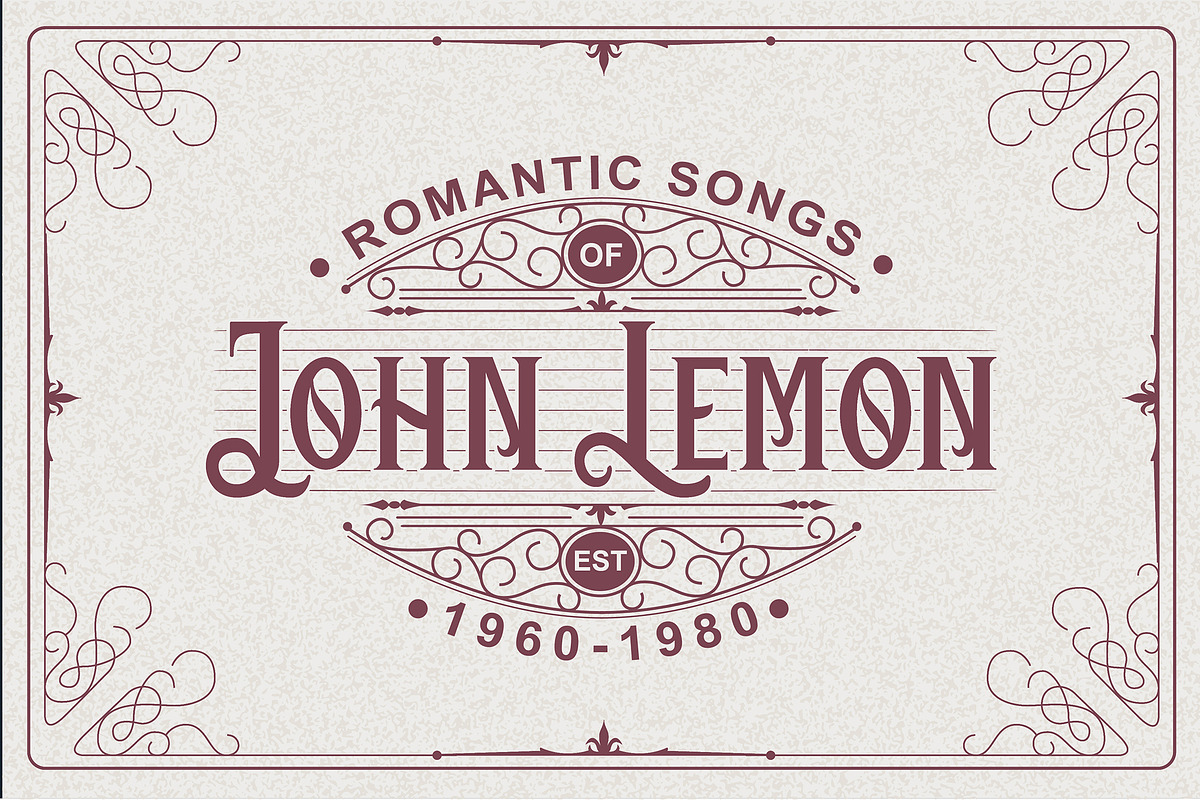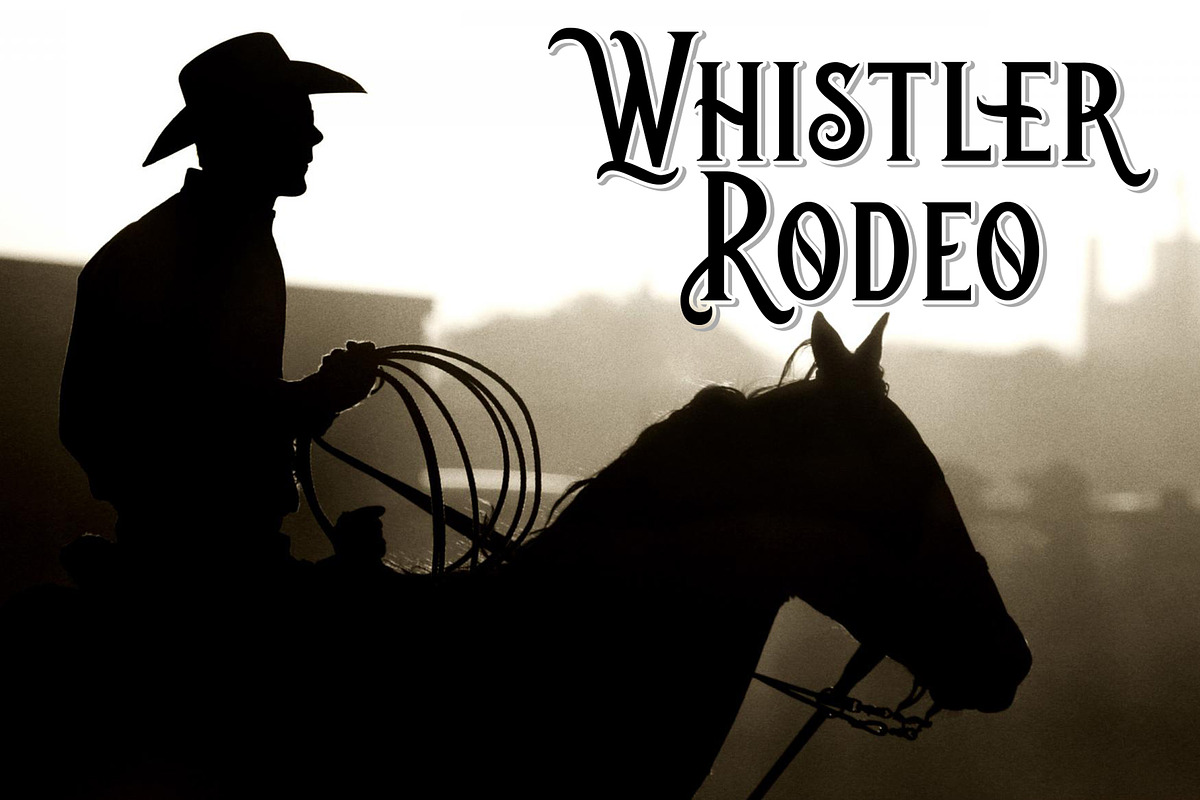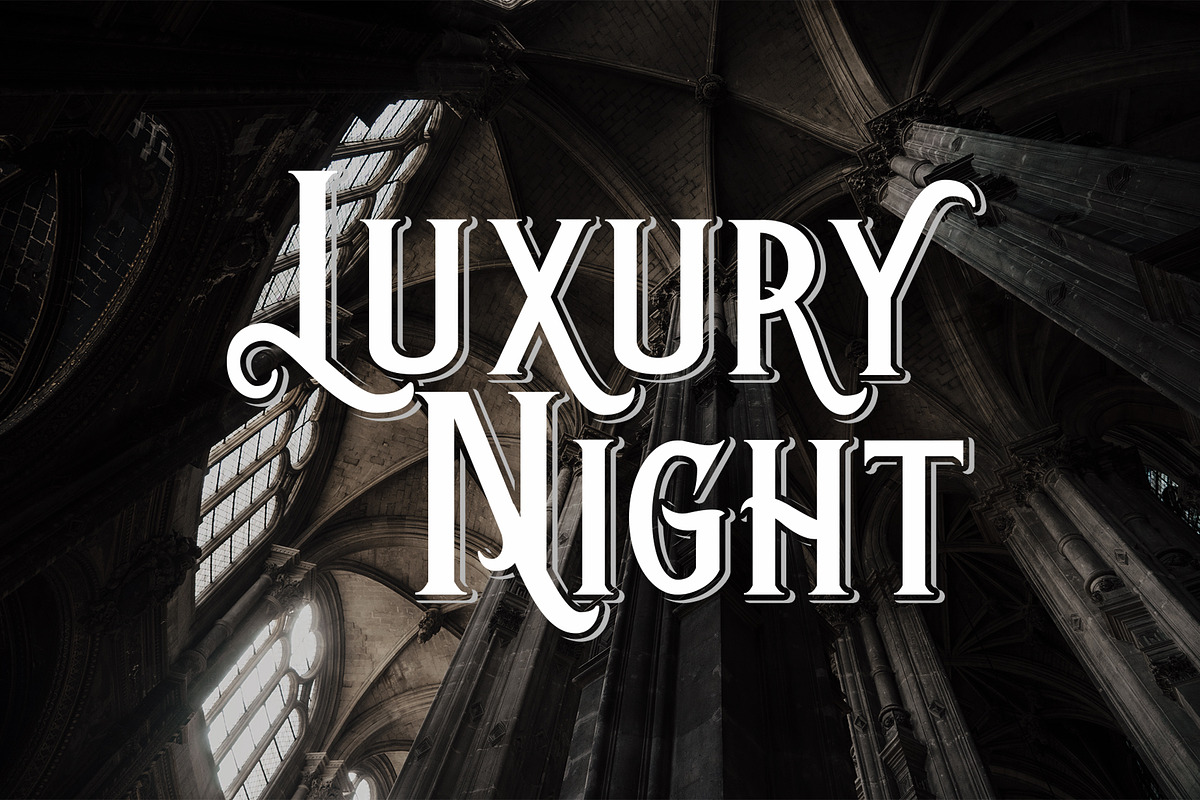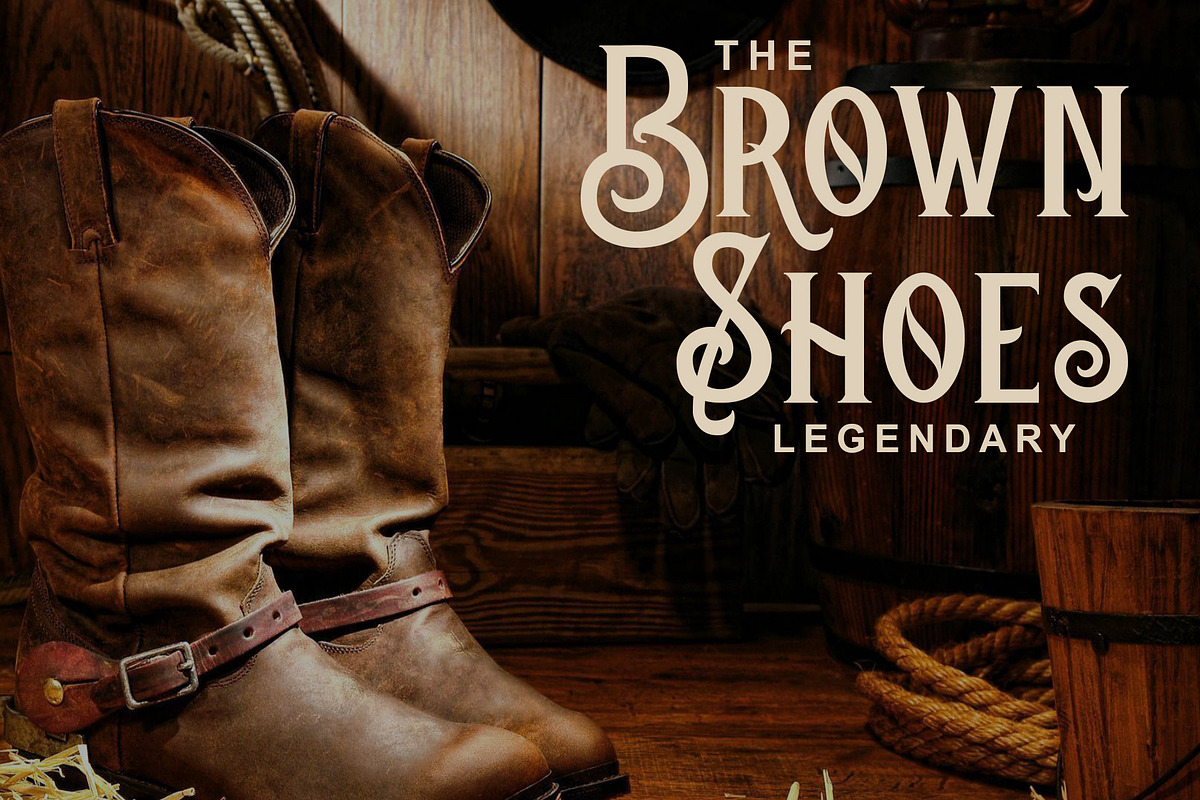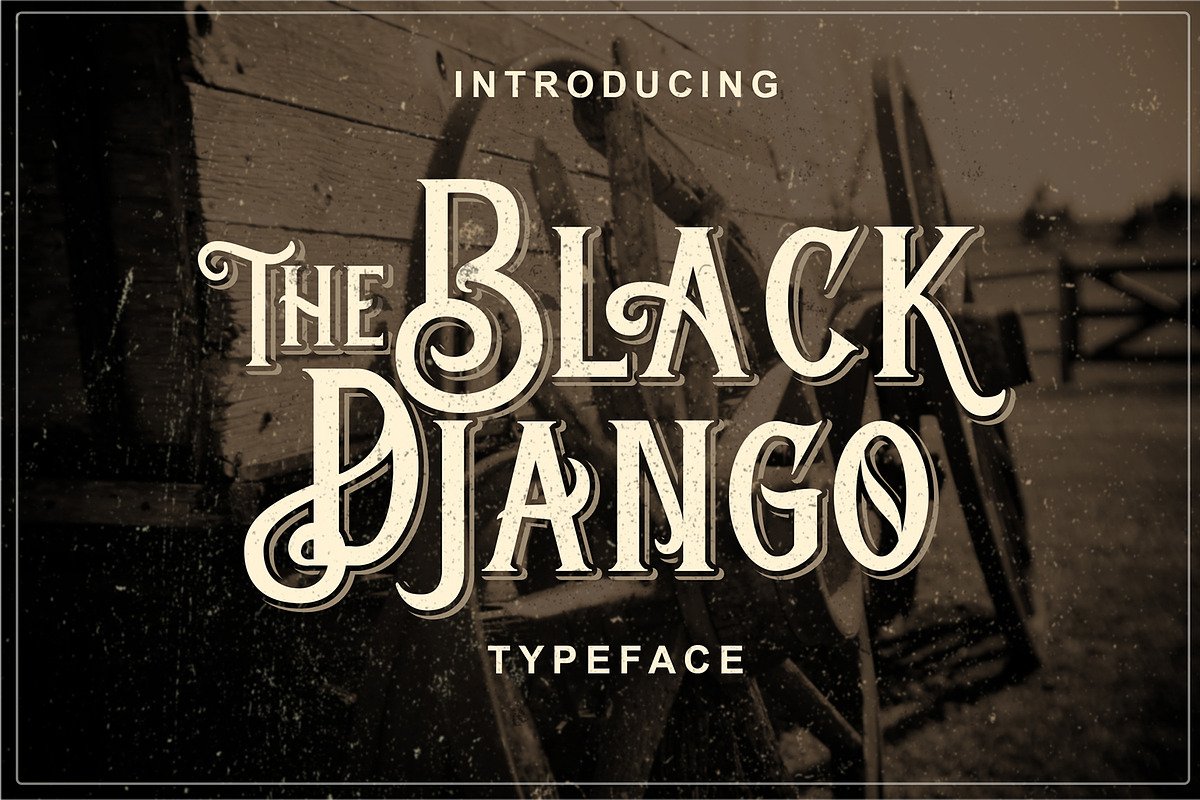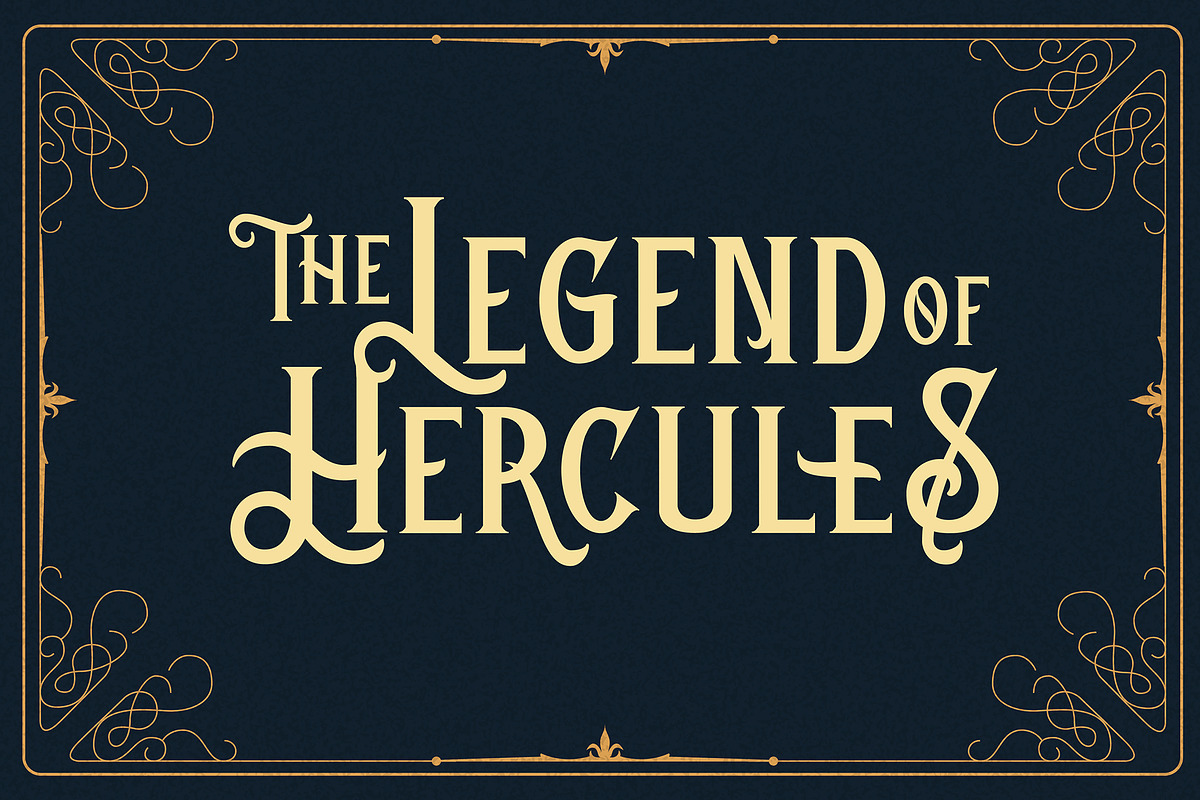
Black Django Typeface
Proudly present our new product "The Black Django ". I create this typeface inspired by vintage signage and decorative shapes.
The Black Django are great and usefull for product logo, poster title, headline, packaging, badge, wedding card logo, clothing brand logo,Vintage design and much more.